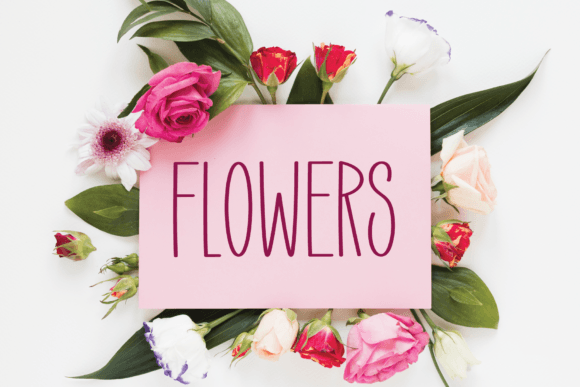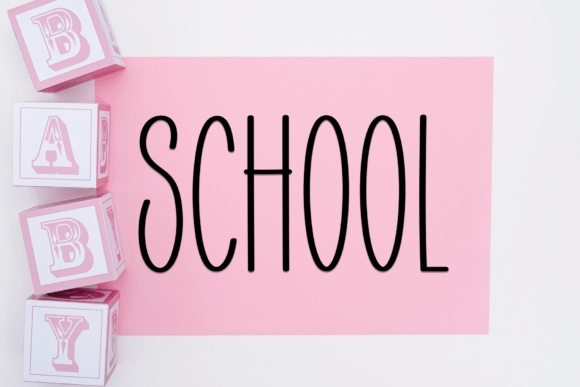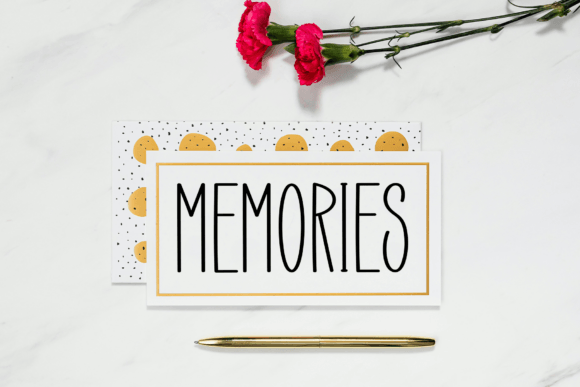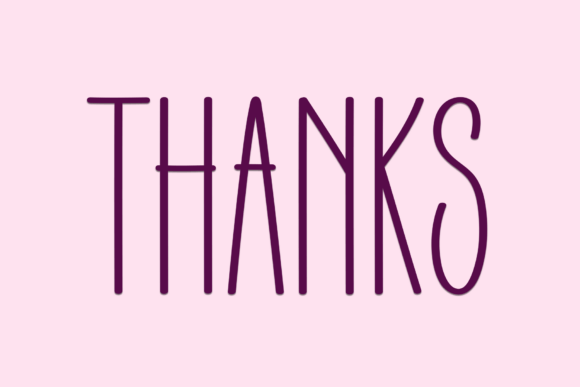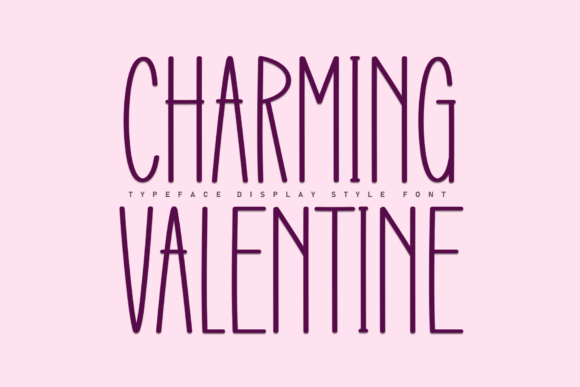
Introducing Charming Valentine Font: The Perfect Blend of Elegance and Casual Charm
Are you on the hunt for a font that exudes luxury, elegance, and a touch of casual flair? Look no further than Charming Valentine, a beautiful handwritten font that is sure to elevate your designs to the next level. In this article, we’ll dive into the world of Charming Valentine, exploring its unique features, uses, and benefits for designers and crafters alike.
What is Charming Valentine Font?
Charming Valentine is a stunning handwritten font that boasts a relaxed and sporty feel, reminiscent of marker-drawn letters. Its effortless charm makes it an ideal choice for a wide range of design projects, from branding and logos to wedding supplies, greeting cards, and marketing promotions.
Key Features of Charming Valentine Font
- Handwritten with a marker feel: Charming Valentine’s unique texture gives it a personal, hand-crafted feel that sets it apart from more traditional fonts.
- Relaxed and sporty vibe: This font’s casual charm makes it perfect for designs that require a touch of elegance without being too formal.
- Luxurious and elegant: Despite its casual feel, Charming Valentine still manages to convey a sense of sophistication and luxury, making it ideal for high-end designs.
Uses for Charming Valentine Font
So, where can you use Charming Valentine Font? The possibilities are endless! Here are some ideas to get you started:
- Branding and logos: Create a lasting impression with a custom logo that showcases your brand’s personality.
- Wedding supplies: Add a touch of romance to your wedding designs, from invitations to decorations.
- Greeting cards: Create beautiful, heartfelt cards for any occasion.
- Fashion and lookbooks: Elevate your fashion designs with a font that exudes style and sophistication.
- Marketing promotions: Stand out from the crowd with eye-catching promotional materials.
So, what makes Charming Valentine Font a must-have for designers and crafters? Here are just a few benefits:
- Ease of use: Charming Valentine is easy to read and works well in a variety of design contexts.
- Versatility: This font can be used for both digital and print designs, making it a great addition to any design toolkit.
- Unique style: Charming Valentine’s distinctive texture and feel set it apart from more traditional fonts.
Tips for Using Charming Valentine Font
To get the most out of Charming Valentine Font, here are a few tips to keep in mind:
- Pair with complementary fonts: Combine Charming Valentine with other fonts to create visually interesting designs.
- Experiment with colors: Try out different colors and textures to add depth and interest to your designs.
- Play with sizes: Use Charming Valentine in a variety of sizes to create visual hierarchy and emphasis.
In conclusion, Charming Valentine Font is a beautiful, versatile font that is sure to become a staple in any designer’s toolkit. Its unique blend of elegance and casual charm makes it perfect for a wide range of design projects, from branding and logos to wedding supplies and marketing promotions. With its ease of use, versatility, and unique style, Charming Valentine is a must-have for designers and crafters looking to elevate their designs to the next level.